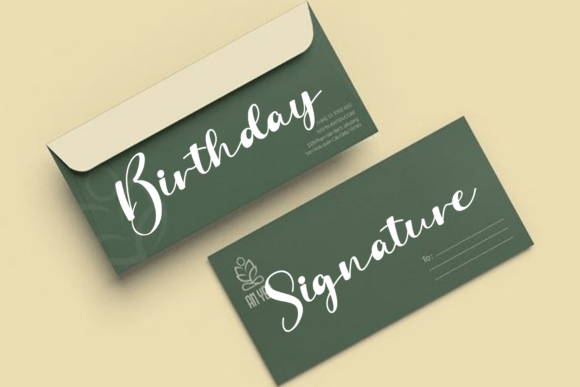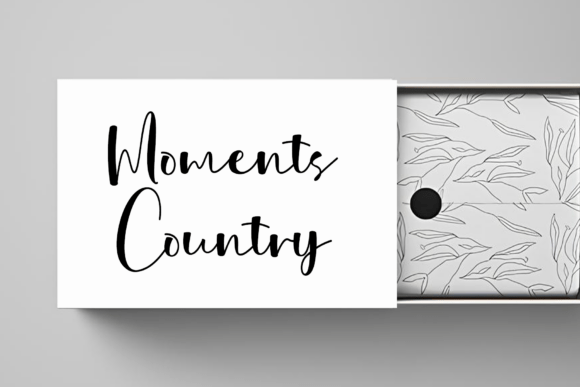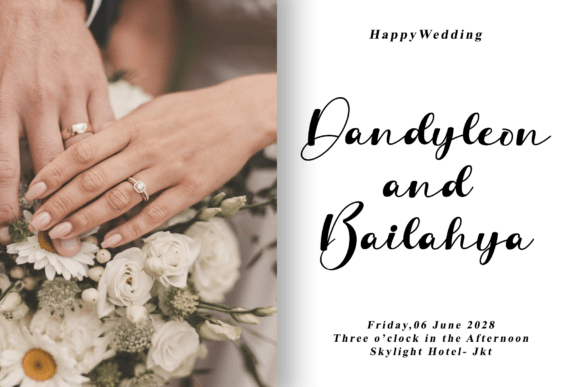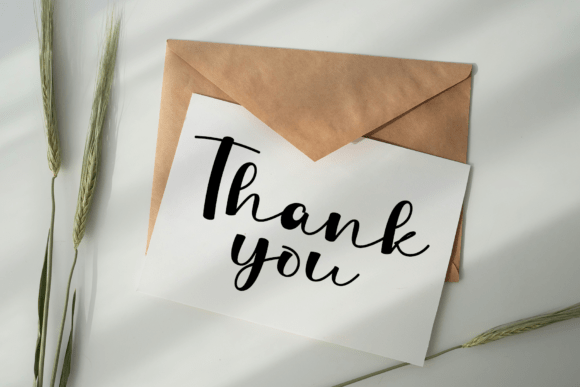
Introduction to My Lemon Font
Have you ever been working on a creative project and struggled to find the perfect font to bring your vision to life? I know I have. Remember that moment when you stumbled upon the perfect font, and everything just clicked? For me, that moment came when I discovered My Lemon Font.
My Lemon Font is more than just a typeface – it’s an experience. With its sophisticated and rhythmic script design, it adds a touch of elegance and whimsy to any project. Whether you’re designing packaging for artisanal foods, creating a lifestyle brand, or crafting editorial titles, My Lemon Font is the perfect design resource. Its unique combination of high-contrast visual rhythm and delicate hairline connectors makes it a high-quality choice for designers who demand the best. And the best part? You can download it for free, with a transparent background, making it easy to integrate into your design.
As a designer, you know the value of having a versatile and reliable font at your fingertips. My Lemon Font is a valuable addition to any design library, and its unique aesthetic makes it a standout choice for creative projects.
Key Features of My Lemon Font
- High-quality design resource for creative projects, perfect for designers and artists looking for a unique and stylish font.
- Transparent background, making it ideal for use on images or videos with complex backgrounds.
- Available in 5 different sizes, ranging from 12pt to 48pt, to accommodate a variety of design needs.
- Resolution: 300 DPI, ensuring high-quality output in print and digital applications.
- Unique characteristics include a modern and playful feel, with a citrus-inspired design that’s perfect for food, beverage, and lifestyle brands.
- Perfect for use in logos, branding, packaging, and other design elements where a creative and eye-catching font is needed.
Honest Review: My Lemon Font
As a designer, I’m always on the lookout for high-quality design resources to elevate my creative projects. Recently, I came across My Lemon Font, and I must say, it’s been a great addition to my collection.
- ✨ High-quality design: The font is crisp, clean, and has a beautiful texture that adds depth to any design.
- ✨ Transparent background: This feature allows for easy use in both print and digital designs, making it a versatile design resource.
- ⚠️ Limited font styles: While the font itself is beautiful, I wish there were more style options available, such as bold or italic.
- ⚠️ Not suitable for all designs: The font’s texture can be overwhelming in some designs, so it’s essential to use it judiciously.
Overall, I’m impressed with My Lemon Font. It’s a great design resource for designers working on creative projects, and its high quality and free download make it a valuable addition to any design collection.
Tips for Getting the Most Out of My Lemon Font
To get the most out of My Lemon Font, be sure to use it with a transparent background to really make the font stand out. You can also experiment with different font sizes and styles to create a unique look that suits your design project.
My Lemon Font is perfect for a variety of design projects, including business cards, brochures, and social media graphics. Its high-quality design and versatility make it a great addition to any creative project.